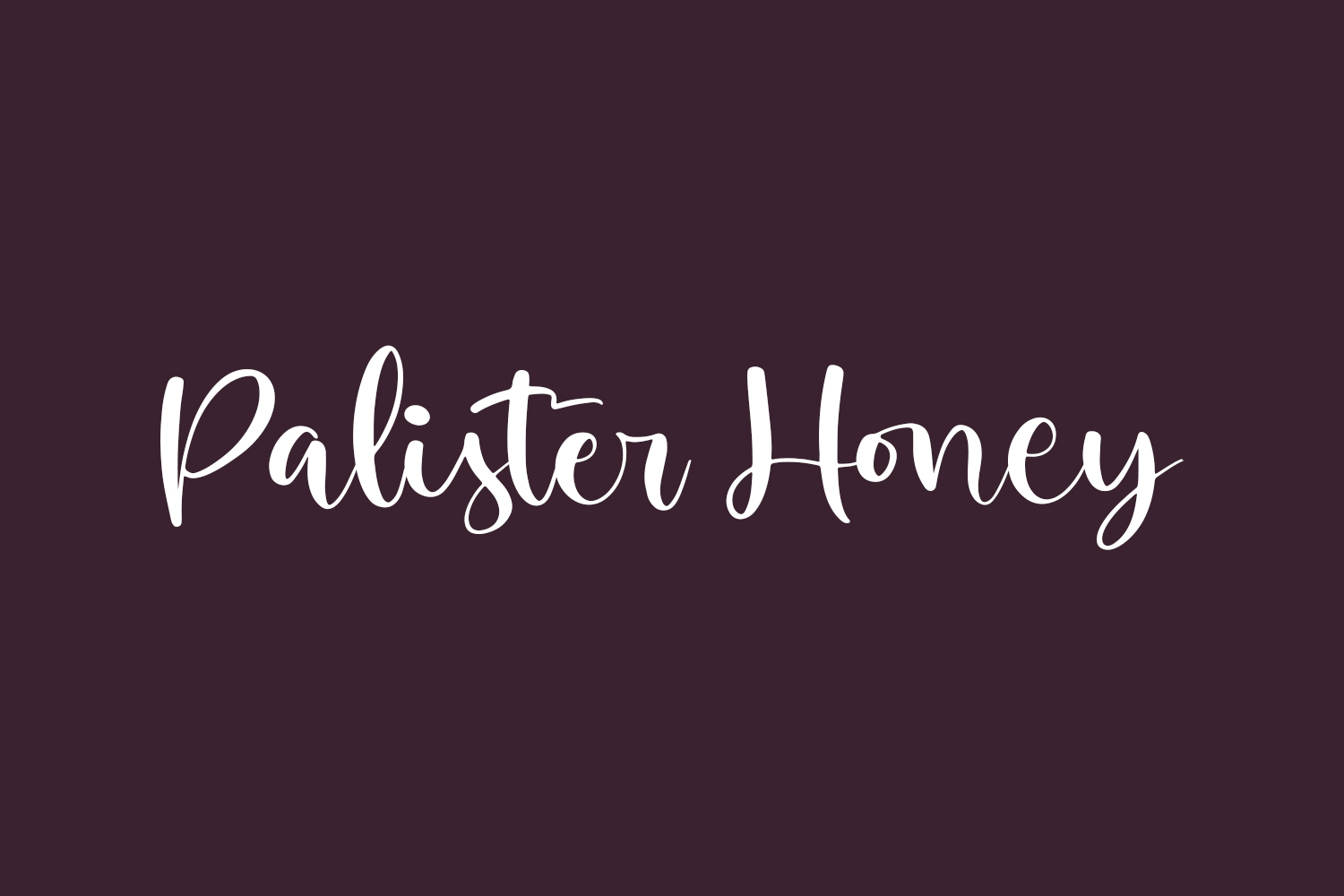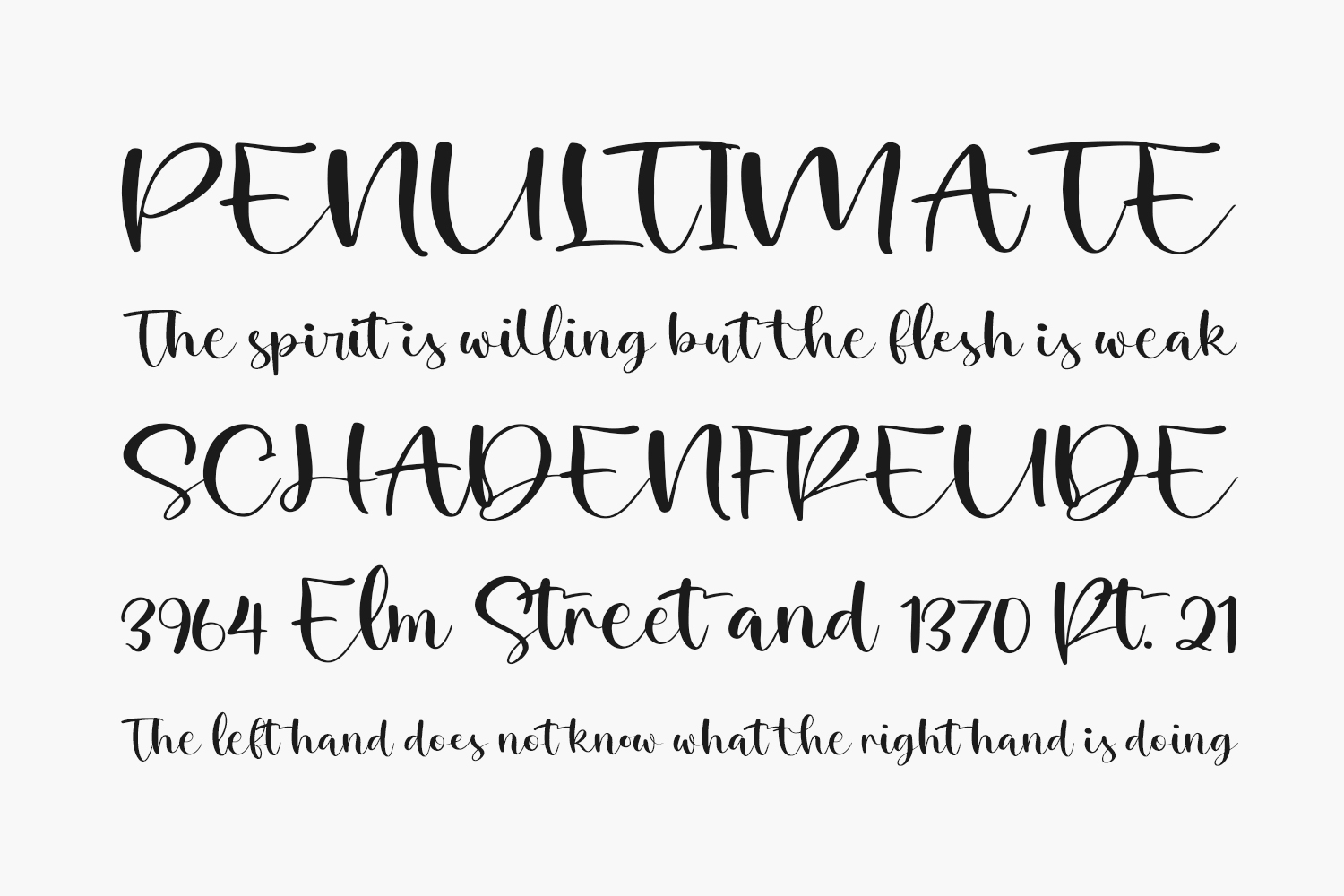
Palister Honey Free Font is a gorgeous and chic handwritten font. It will add a fashionable spark to any design project that you wish to create. Palister Honey Free Font was designed by Perspectype Studio and is free for personal use only. Please purchase the full version for commercial use.
Designed by Perspectype Studio